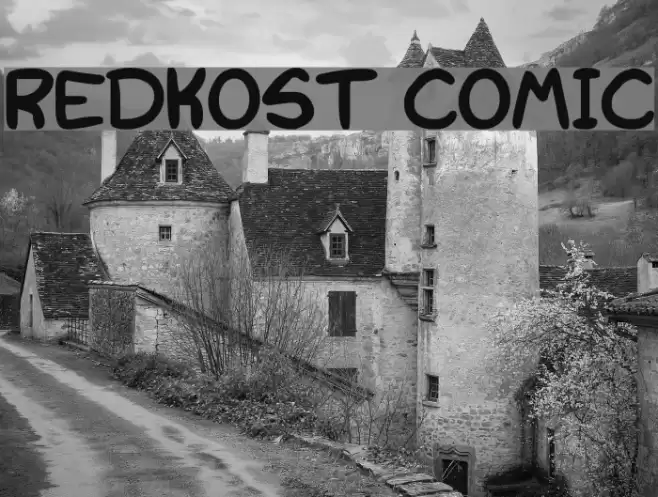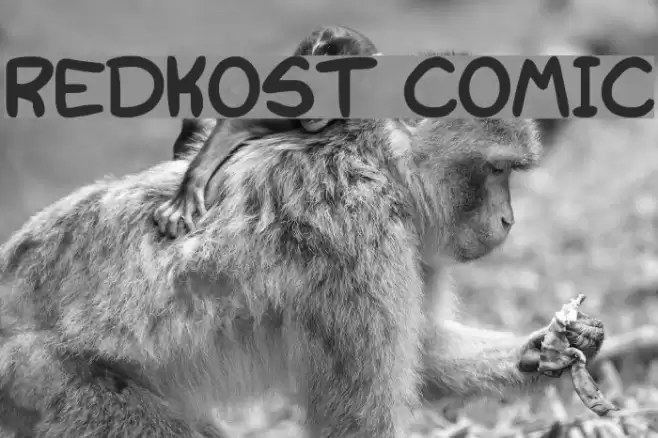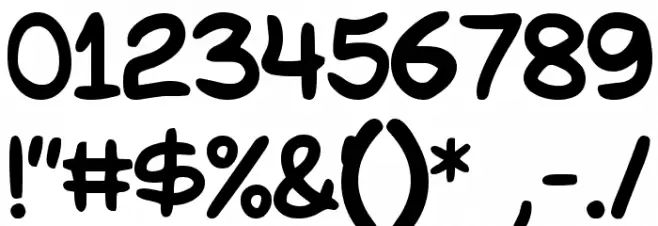
Redkost Comic Font
Redkost Comic Description
This playful and bold font features rounded, thick strokes that give it a friendly and approachable appearance. The characters are slightly irregular, adding a whimsical touch that is reminiscent of comic book lettering. The uppercase and lowercase letters maintain a consistent style, with a noticeable emphasis on curves and smooth lines. Numbers and special characters are designed to match the overall playful aesthetic, making this font ideal for projects that require a fun and informal tone.
A playful, bold font with rounded, thick strokes and a comic book style from Comic fonts.
- Proposed Projects: Ideal for comic books, children's books, playful branding, and informal posters.
- Overall Style: Playful, Whimsical